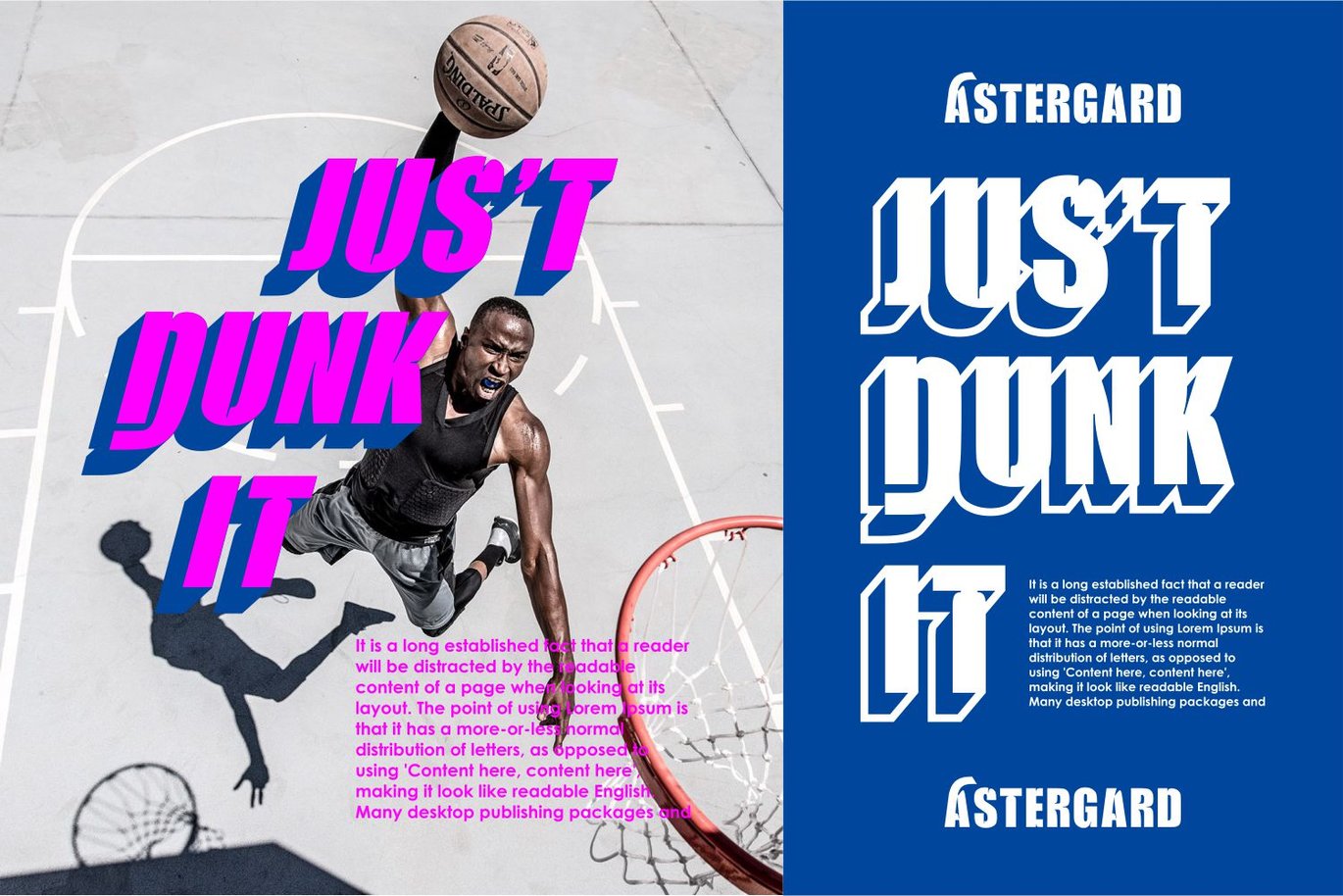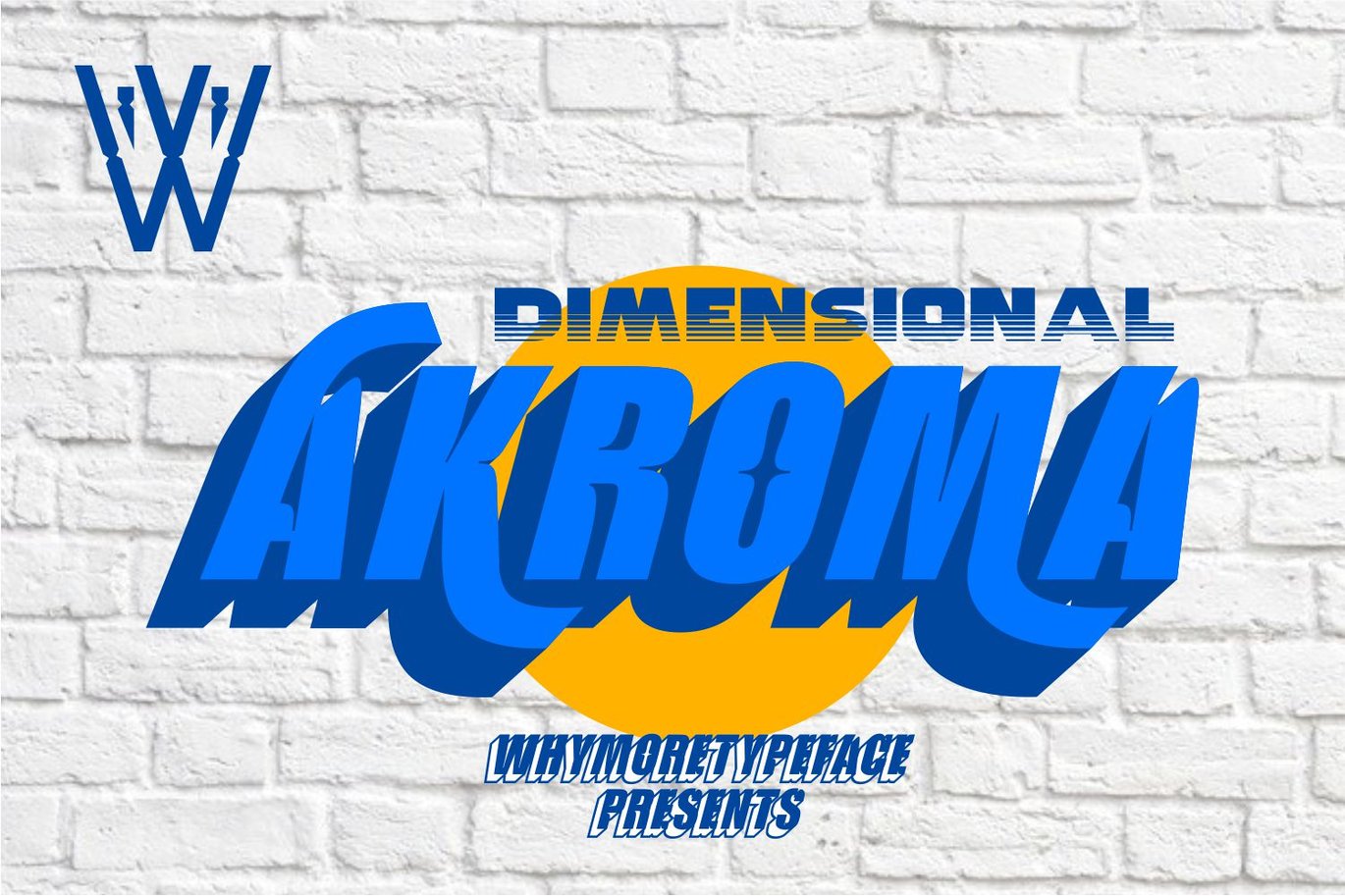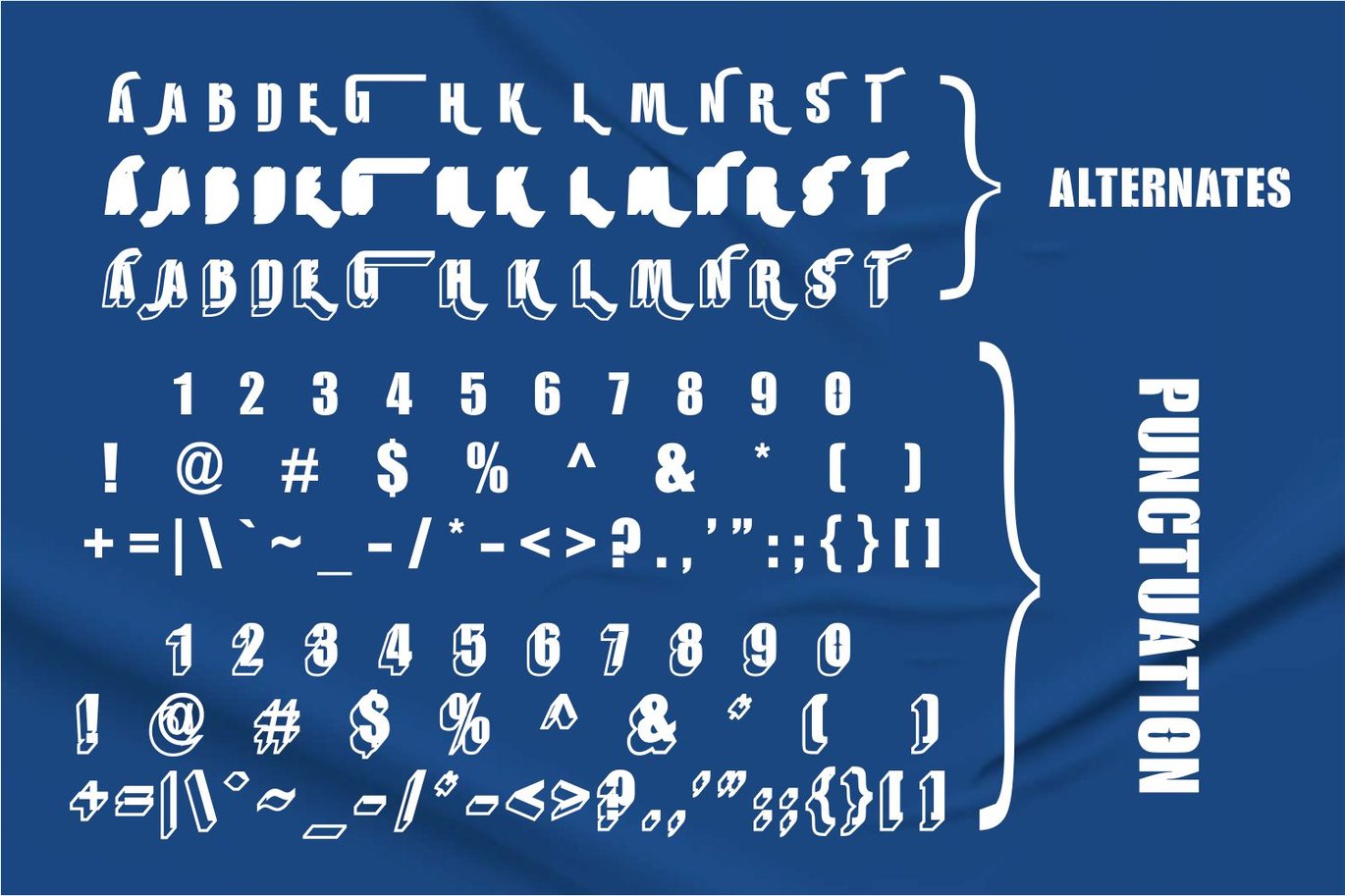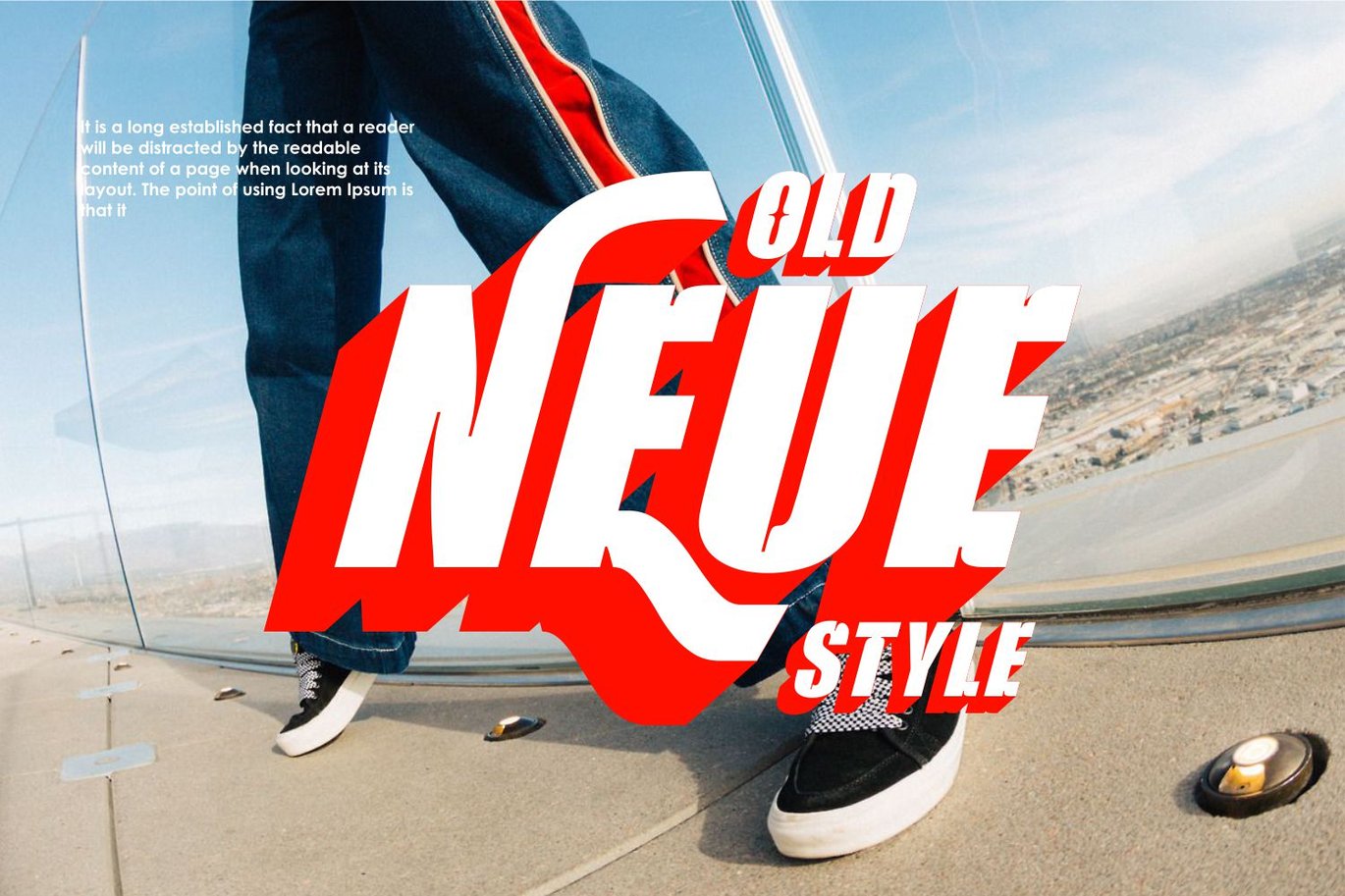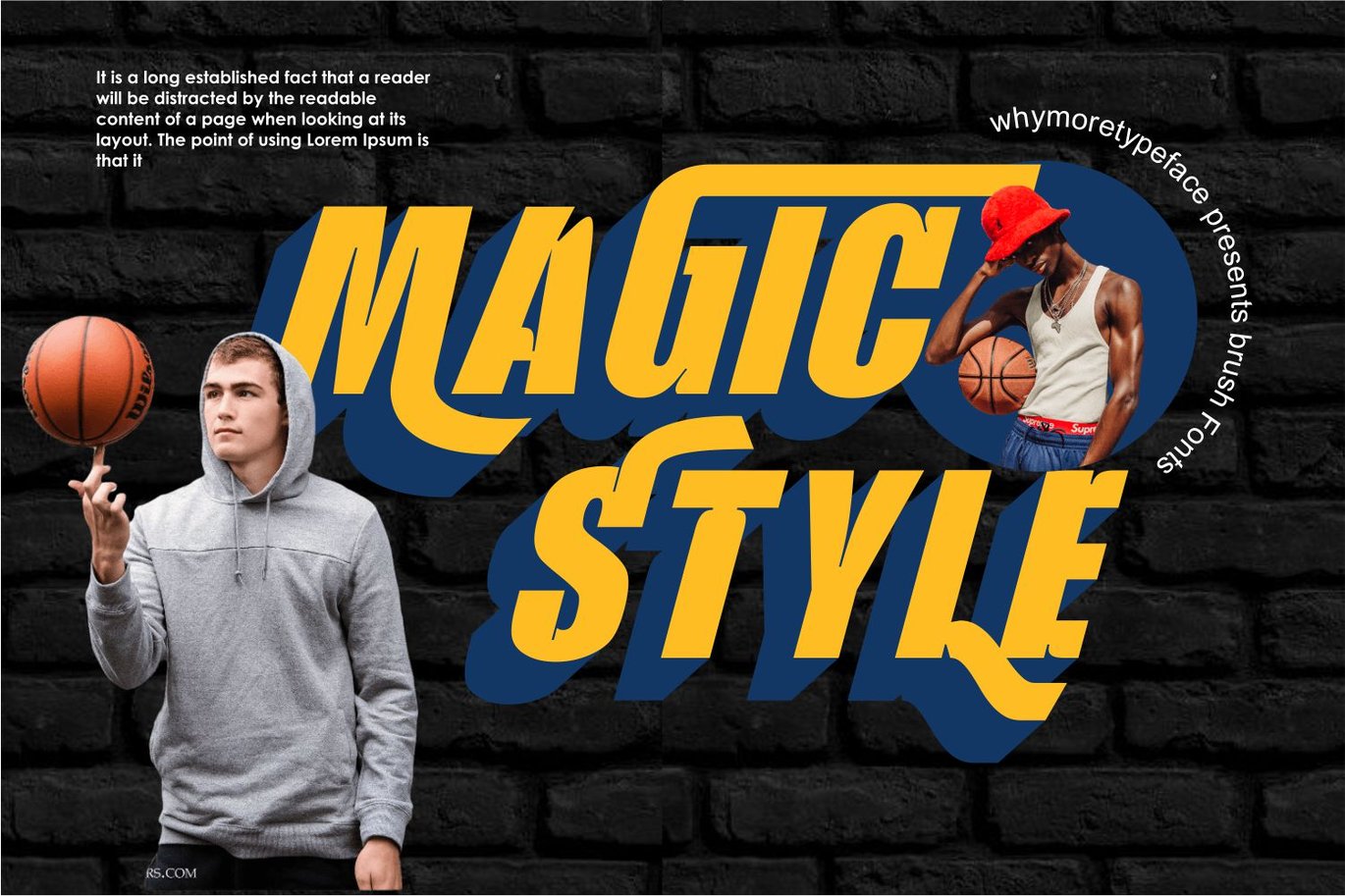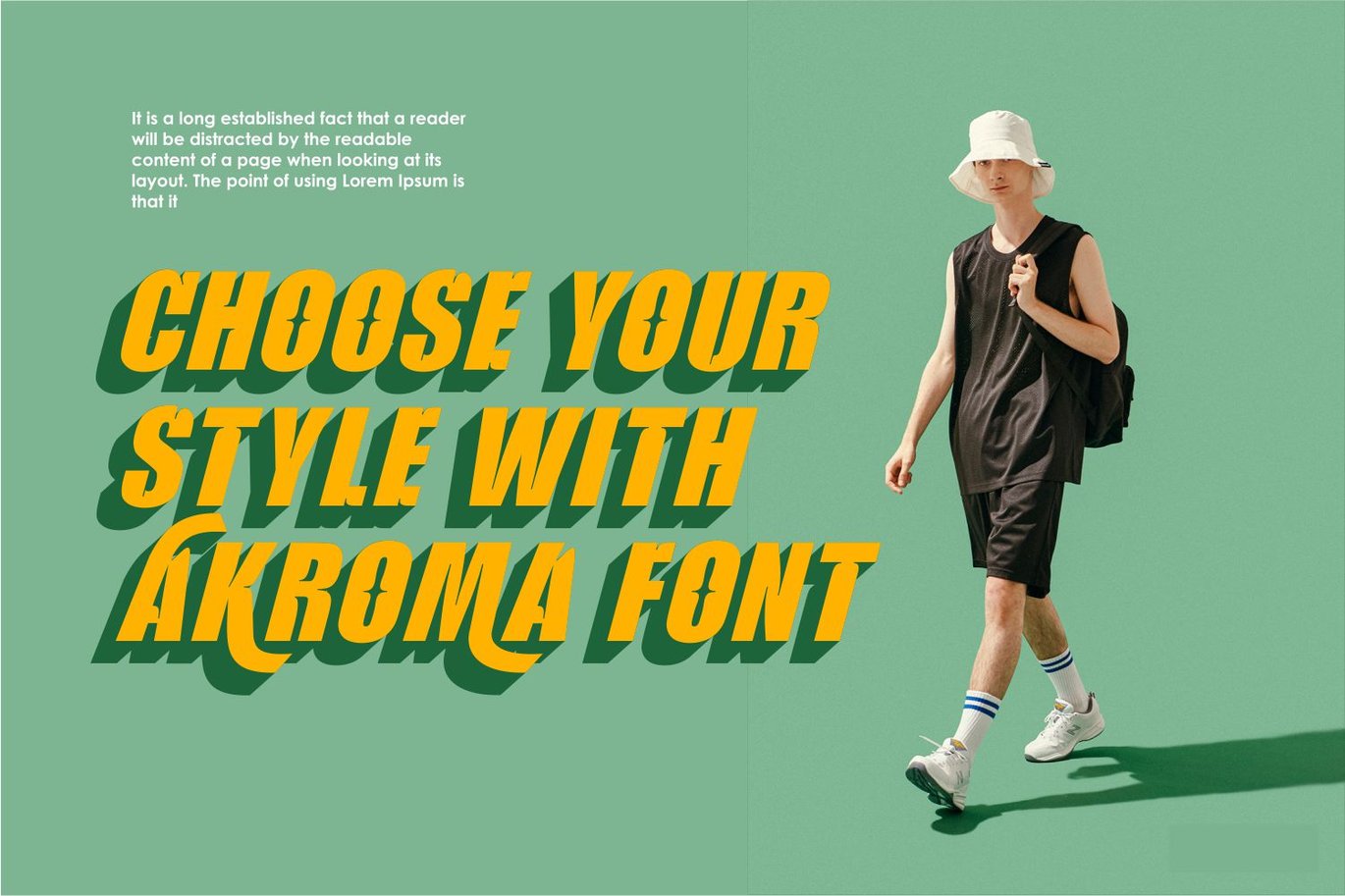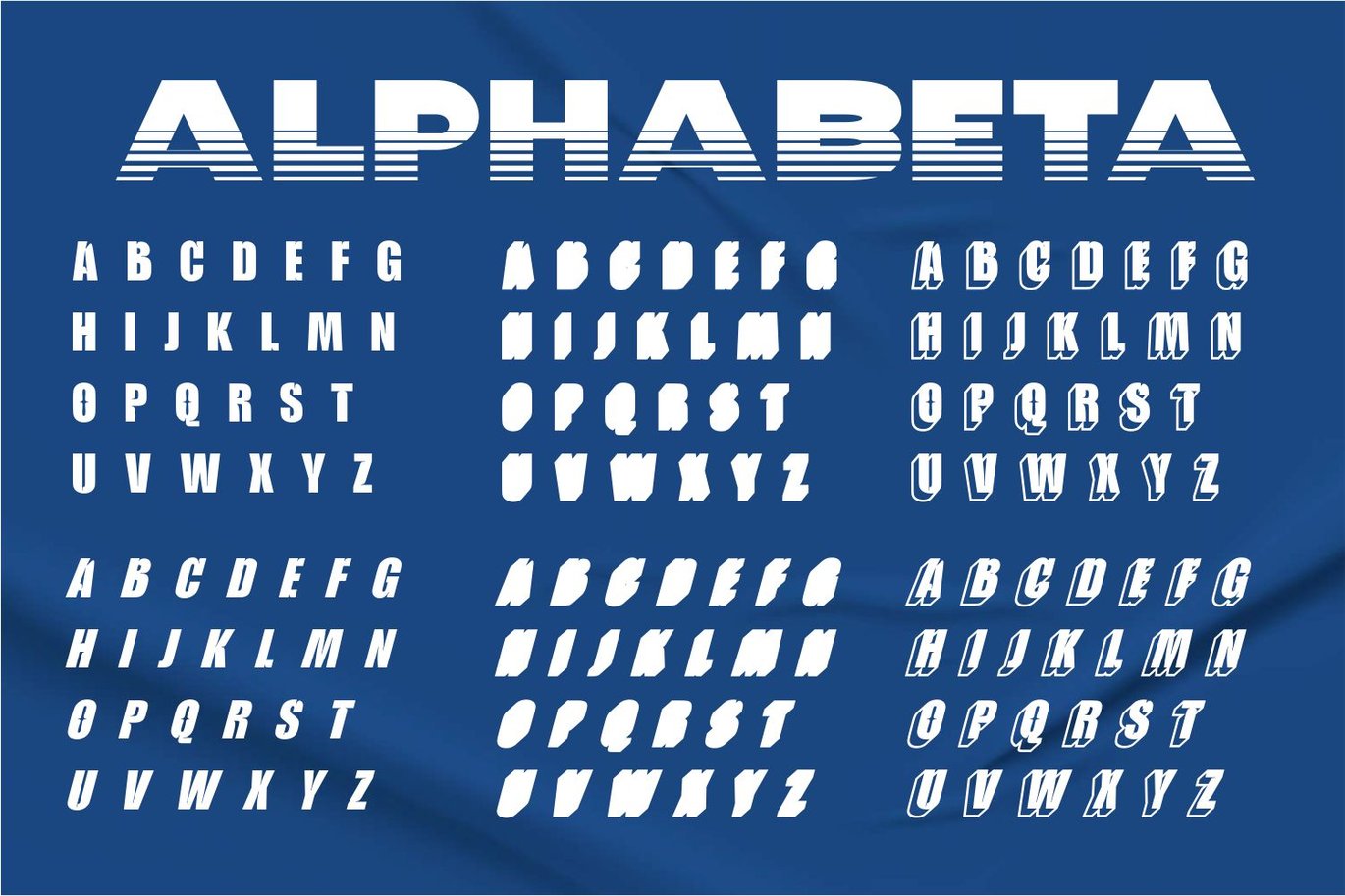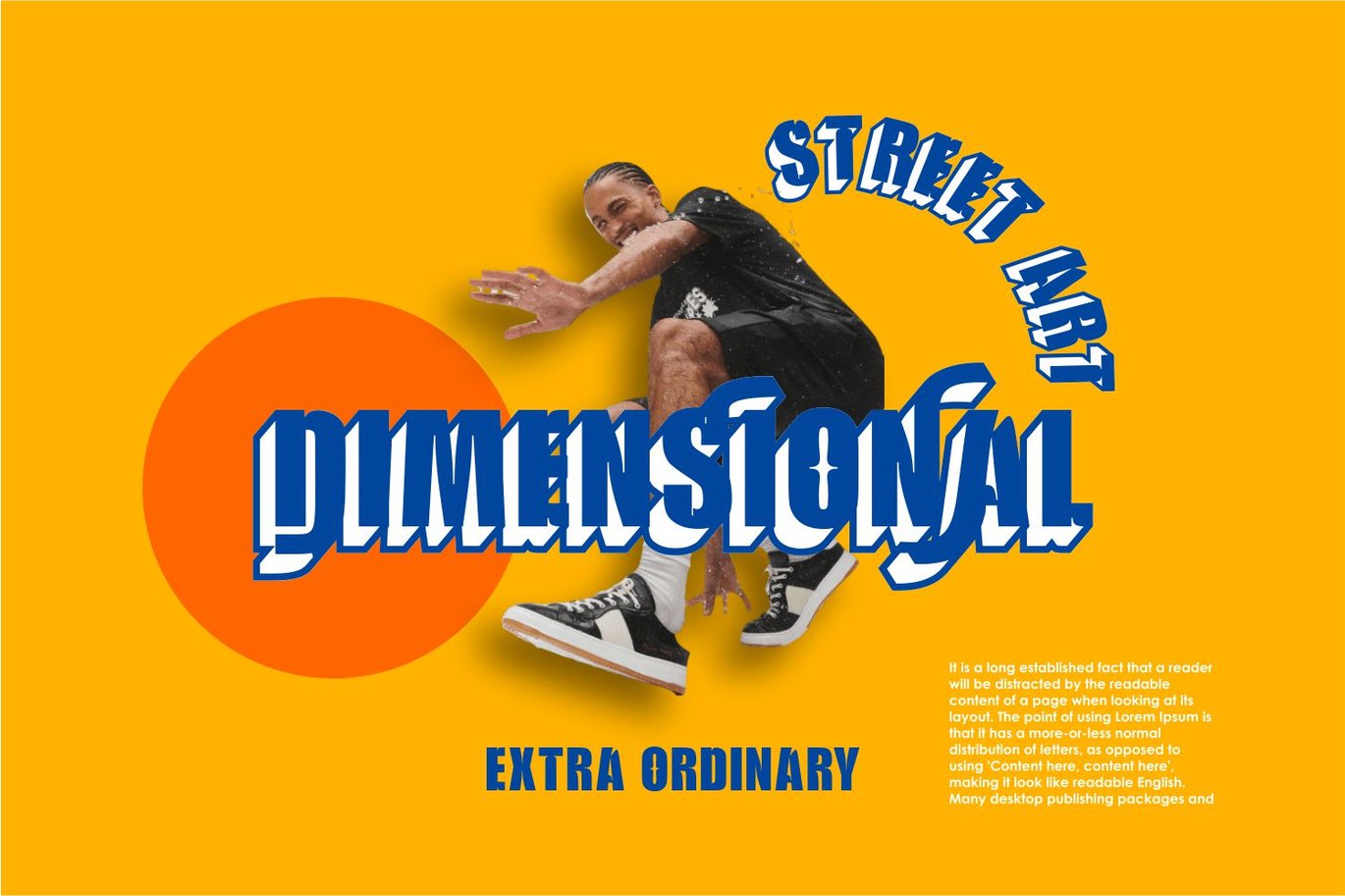
Akroma | Sports font
Akroma fonts are inspired by athleticism combined with retro, Neon, 80s and semi modern elements.
The thickness of the font can also be an indication that this font is very useful for displaying sports products, as shown in the thumbnail preview on the side.
there is one type of Dimensioanal font thatwe deliberately made to give it a more sporty impression.